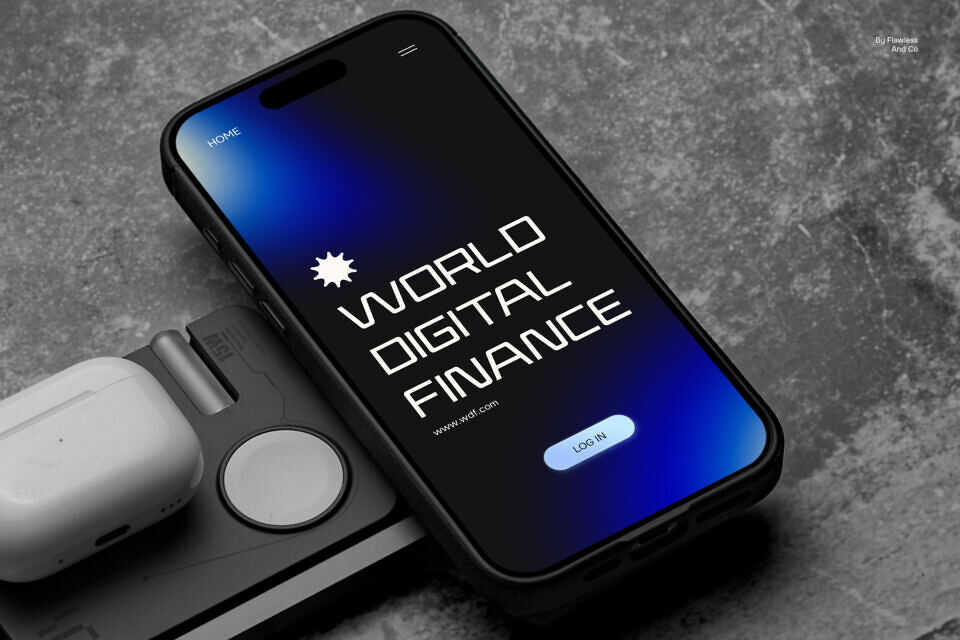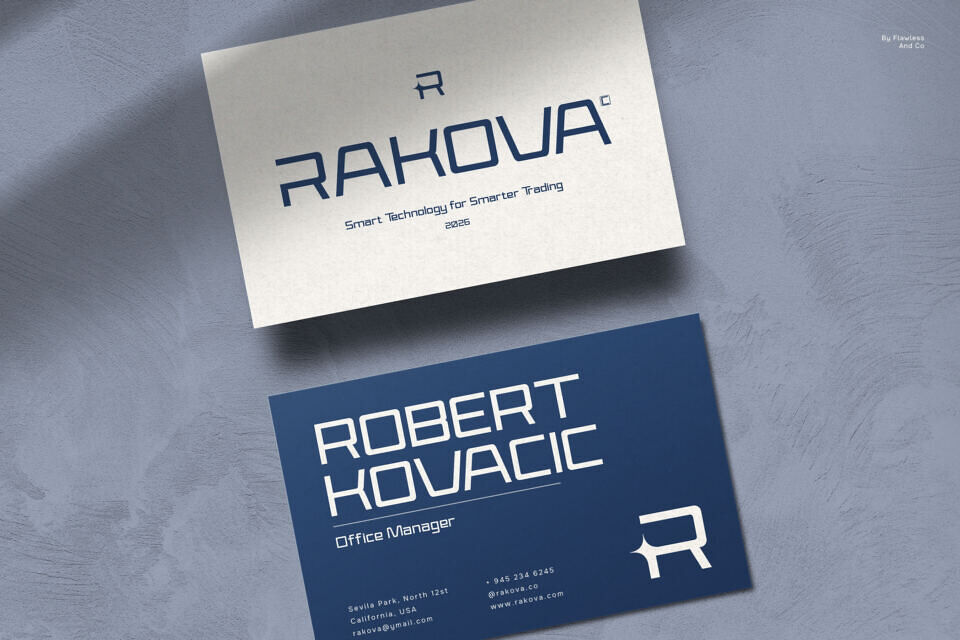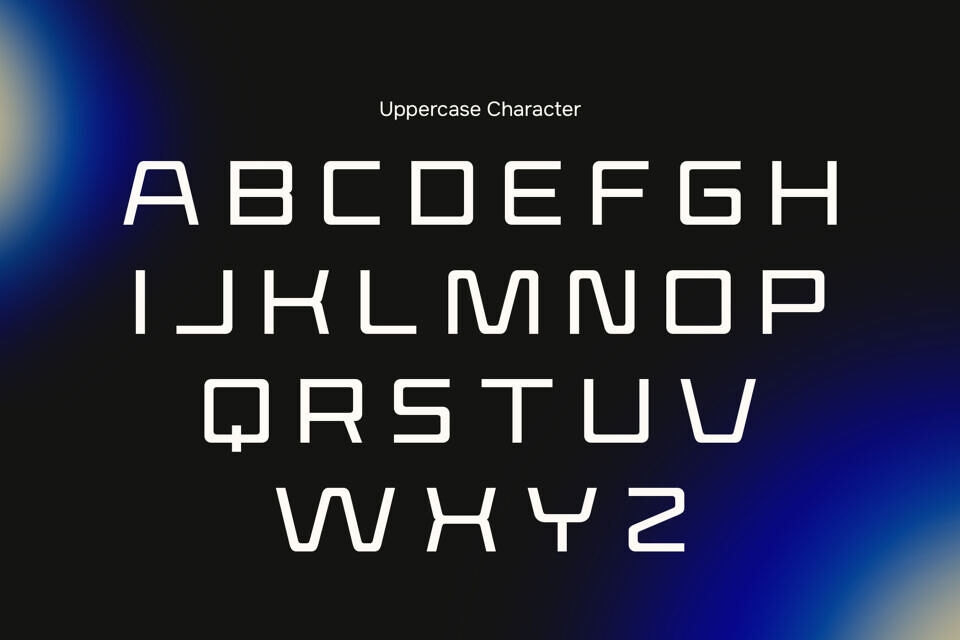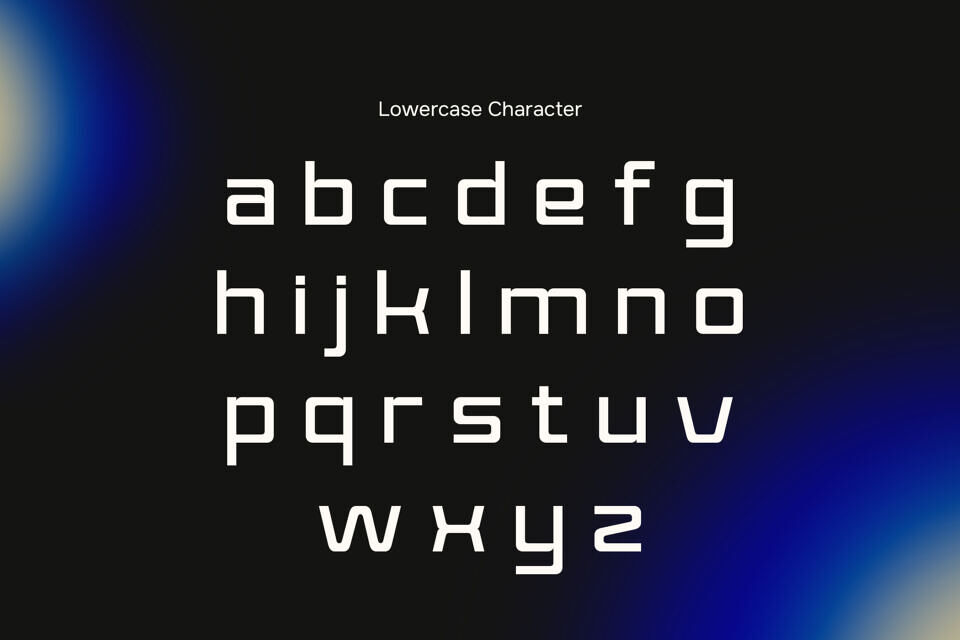
Genox Font
Genox is a modern branding display typeface crafted to create a strong and memorable visual identity. With its clean structure, sharp edges, and contemporary letterforms, Genox delivers a confident and professional look that stands out across various design needs.
Its distinctive style makes it perfect for branding projects that require clarity, impact, and a modern aesthetic. Whether you’re designing logos, headlines, or promotional materials, Genox brings a powerful and stylish presence to your work.